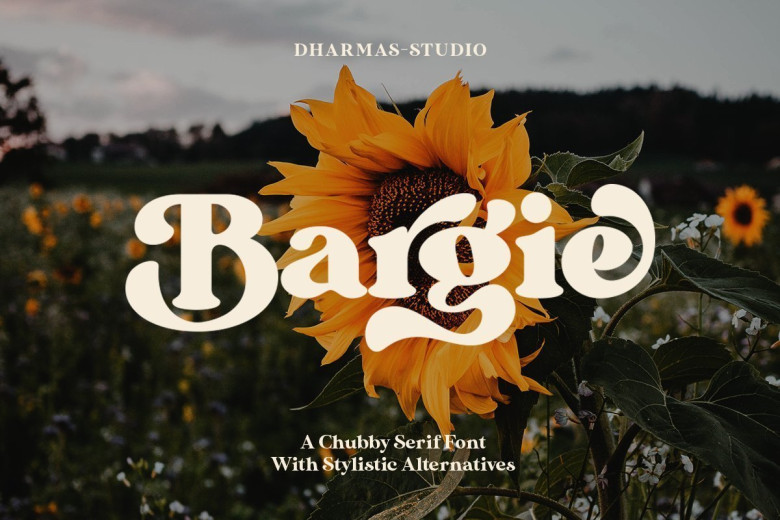
Bargie Serif Font Free
Bargie Serif Font is my new chubby serif font that will bring in your projects a touch of 70’s good vibes feel. It’s perfect match for logotypes, branding, wedding monograms and invitations, blog headlines and much more.
Bargie Serif Font fits perfectly into those nostalgic moodboards and vintage logos. It come with a unique lower and uppercase plus numbers, punctuation & multilingual letters. This font is free for PERSONAL USE. Link to purchase full version and commercial license: HERE